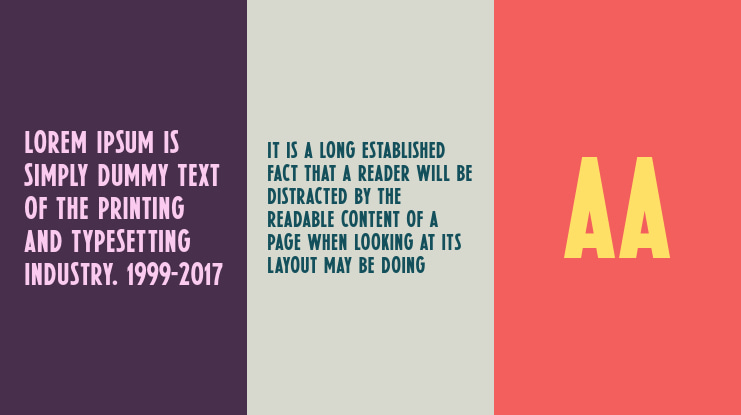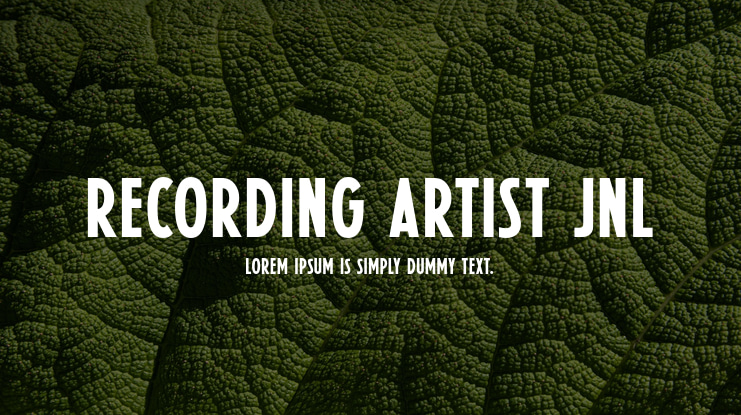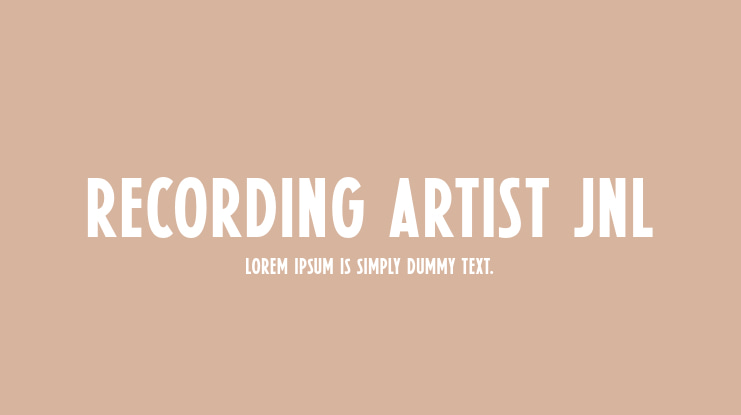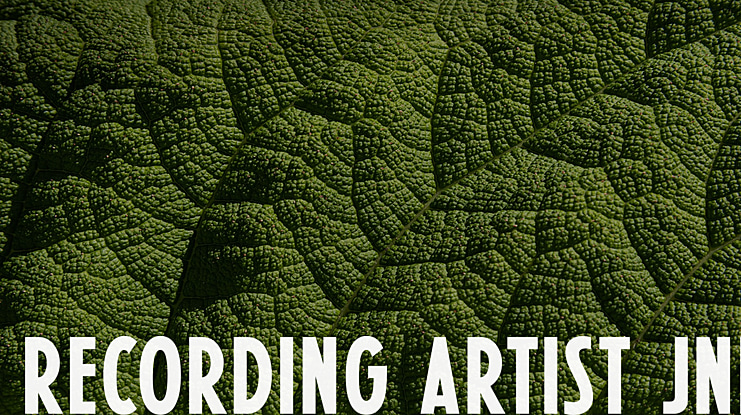
Recording Artist JNL Font Family
Jeffrey N. Levine
When 45 RPM records were the norm for a teenager’s music collection in the 1950s and 1960s, many discs had their labels printed by letterpress. Some record companies utilized a bold, condensed typeface set in all caps for the song’s title and other pertinent information.
The digital version of this font is called Recording Artist JNL, and is available in both regular and oblique versions.
A companion font loosely based on this type design [but with more original characters and a slightly lighter weight] is Promotional Copy JNL.